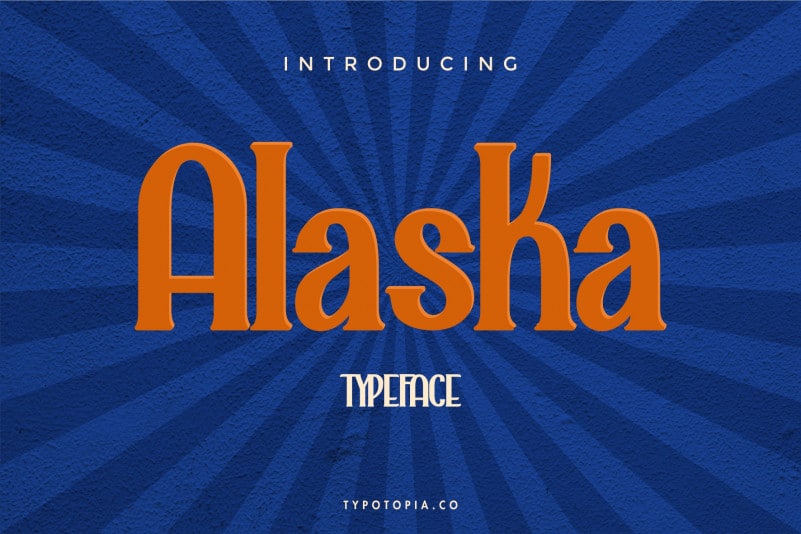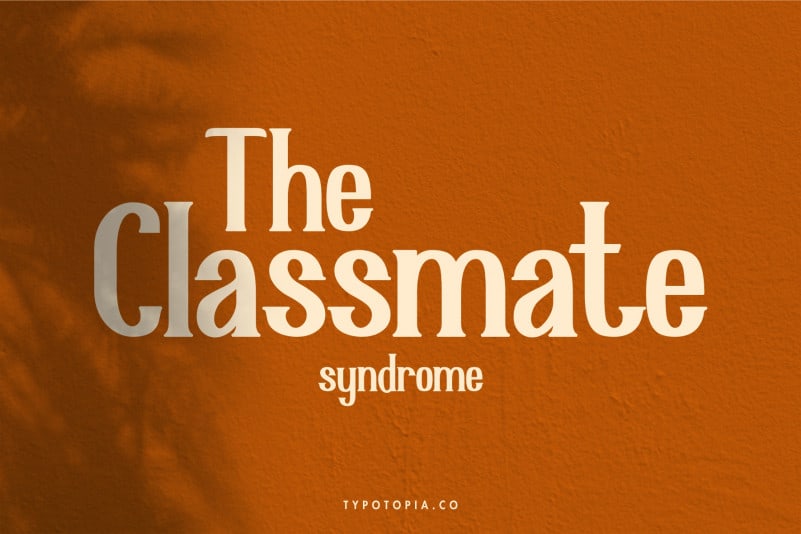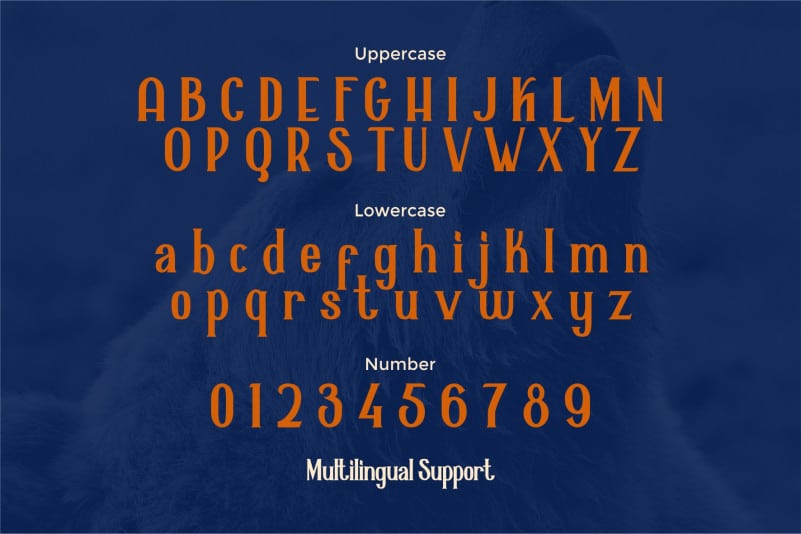
Alaska Serif Font
Alaska Serif Font come with modern vintage look design styles. This lovely font would be perfect to combine in your design. Suitable for digital lettering, logo, t-shirt, print, business cards, branding materials, quotes, nature photography, etc, made with hand painted and carefully crafted.